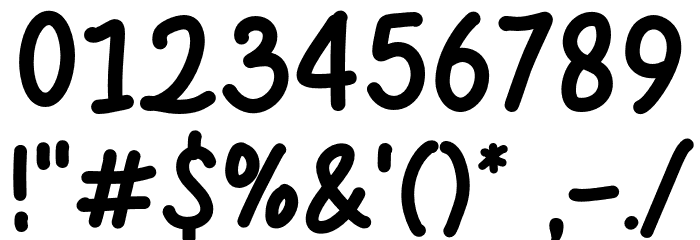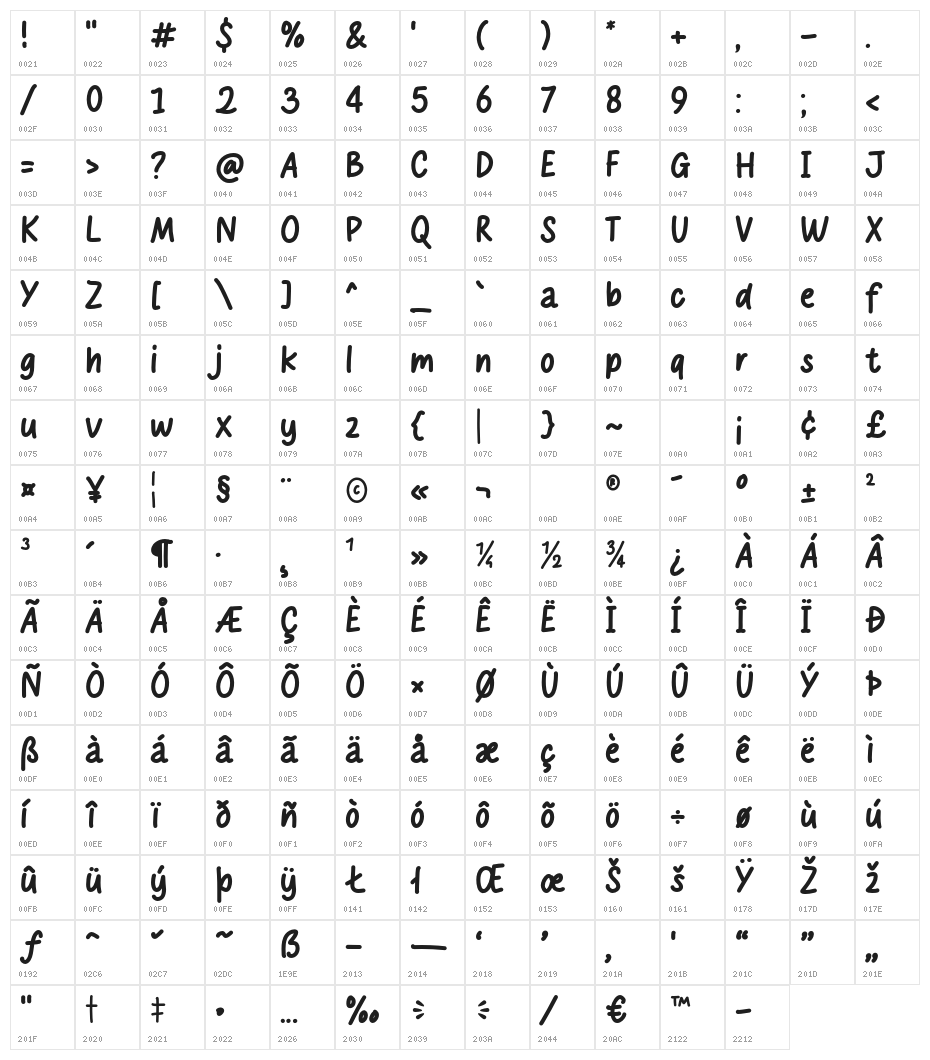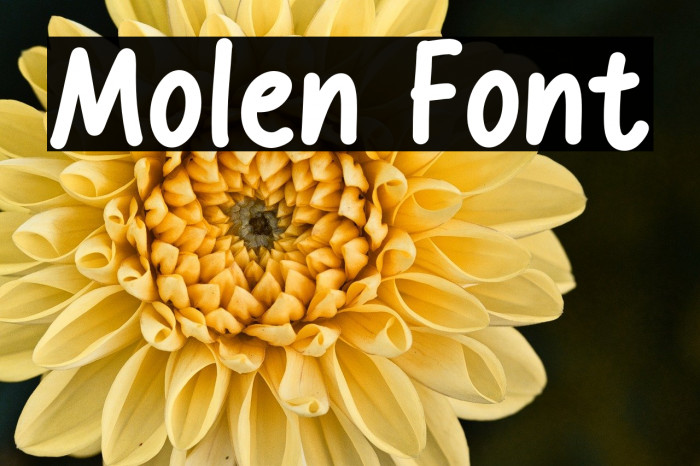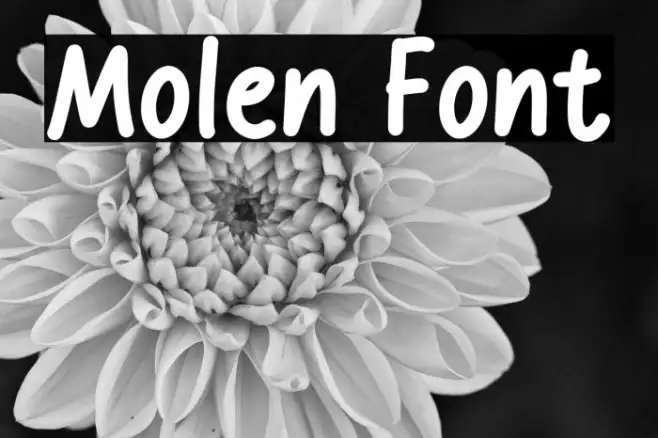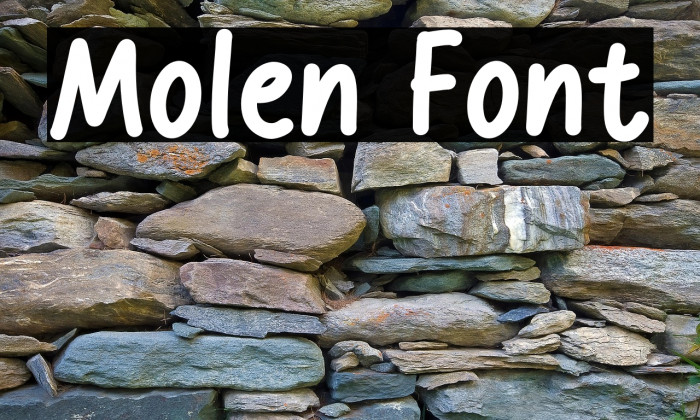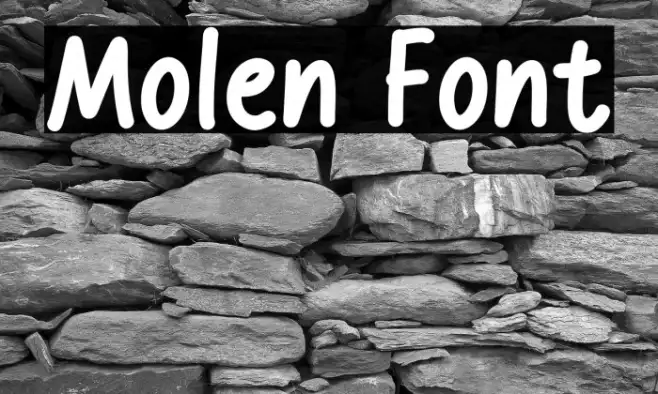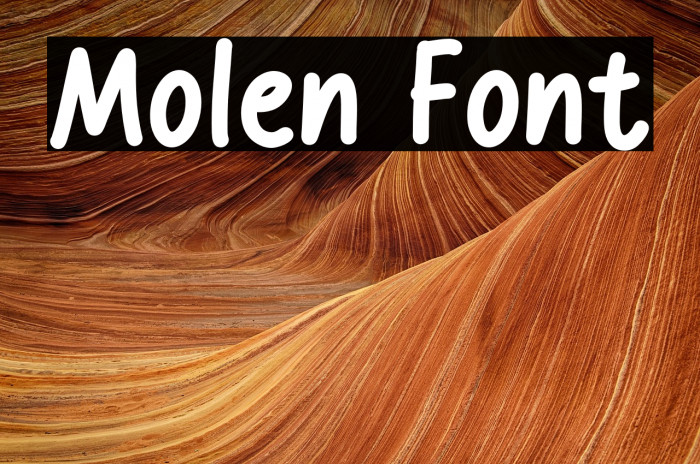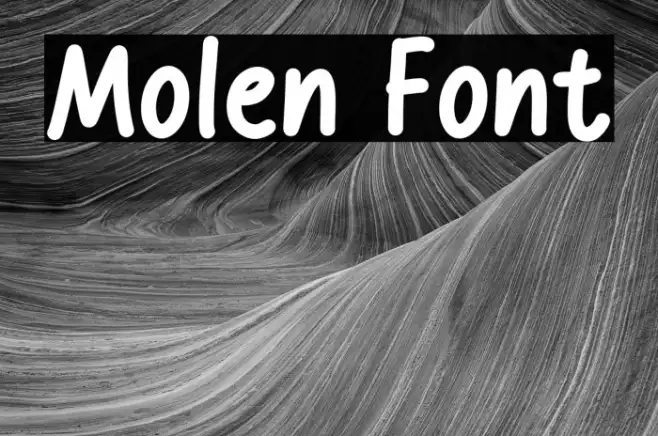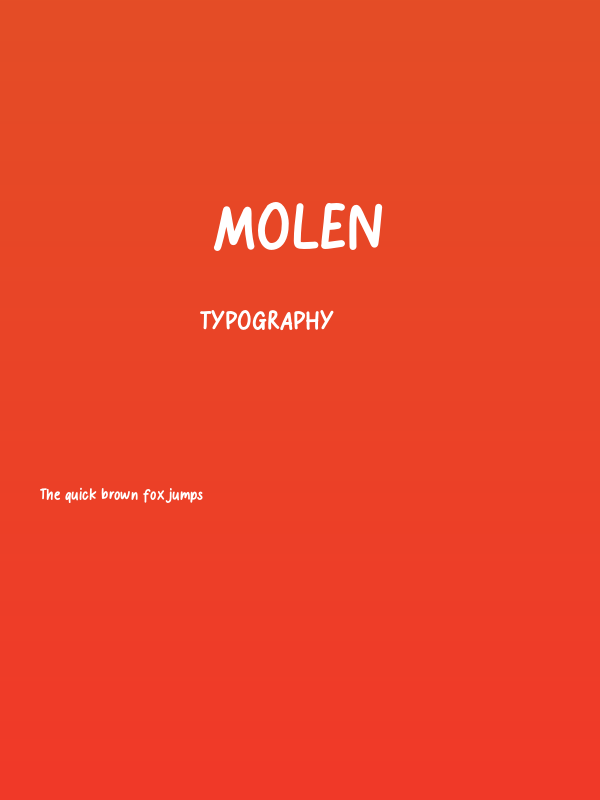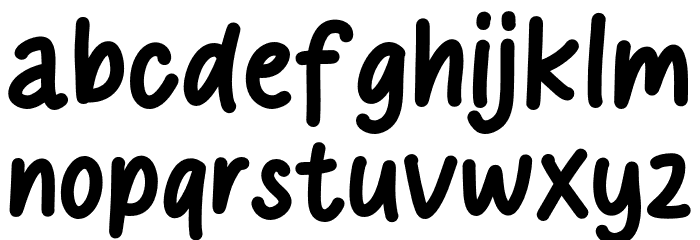
Molen Font
Molen Description
This font exudes a playful and casual vibe with its handwritten style, characterized by rounded edges and a slightly irregular baseline. The letters are bold and have a friendly appearance, making them highly legible and approachable. The uppercase and lowercase letters maintain a consistent style, with smooth curves and a natural flow that mimics handwriting. Numbers and special characters are equally well-crafted, ensuring a cohesive look across all text elements. This font is perfect for projects that require a personal touch or a relaxed, informal tone.
| Use Case | Headlines, Logos, Informal text |
| Proposed Projects | Ideal for greeting cards, children's books, personal blogs, and casual branding. |